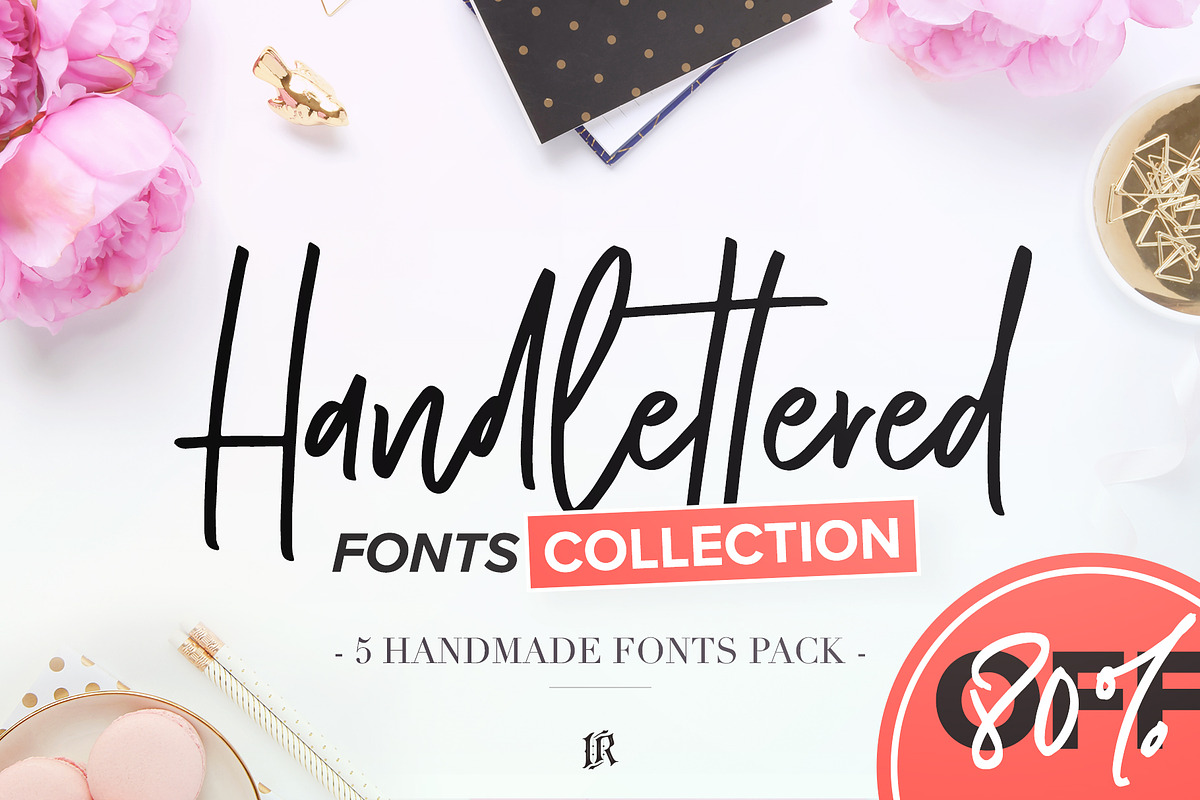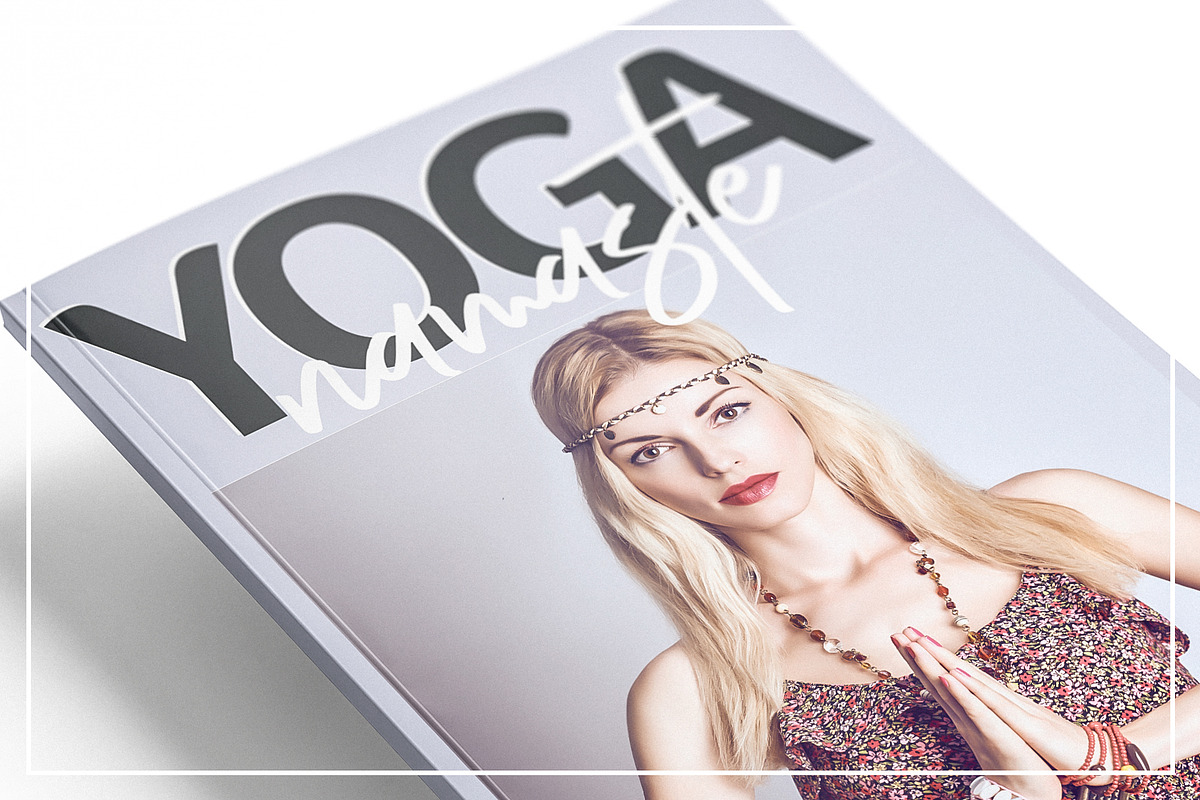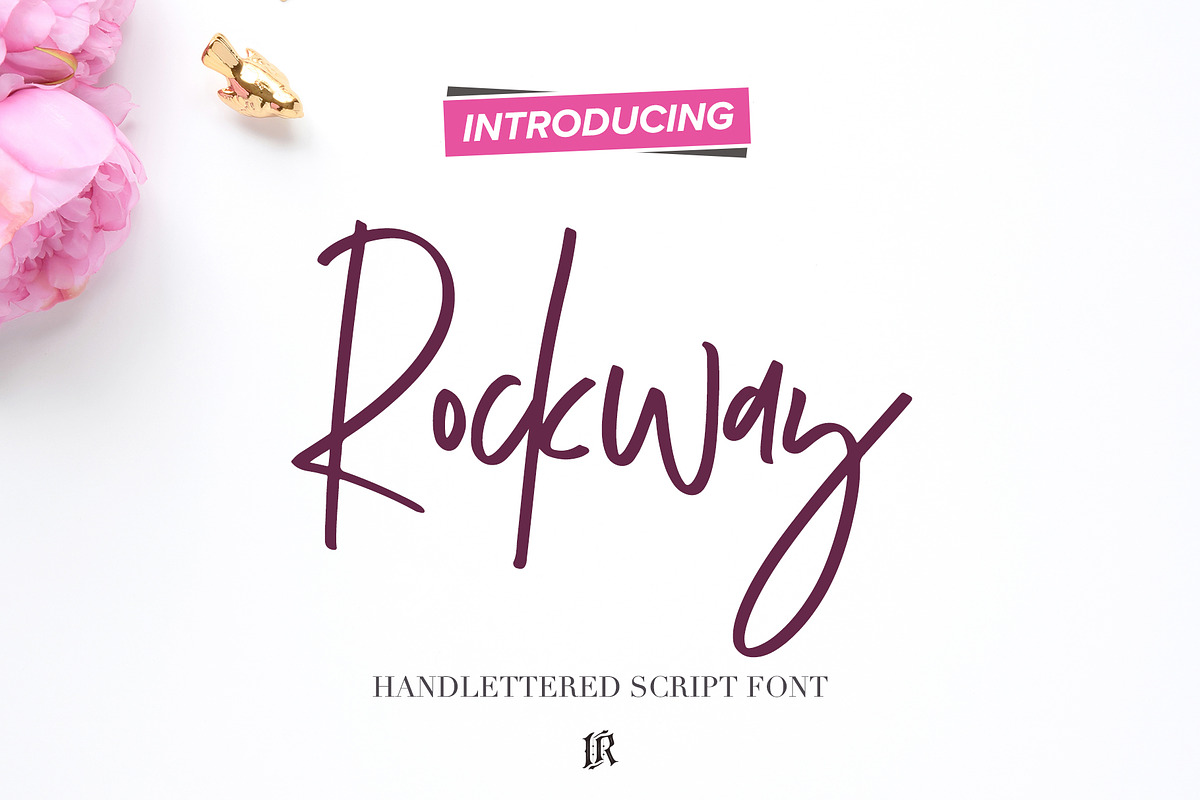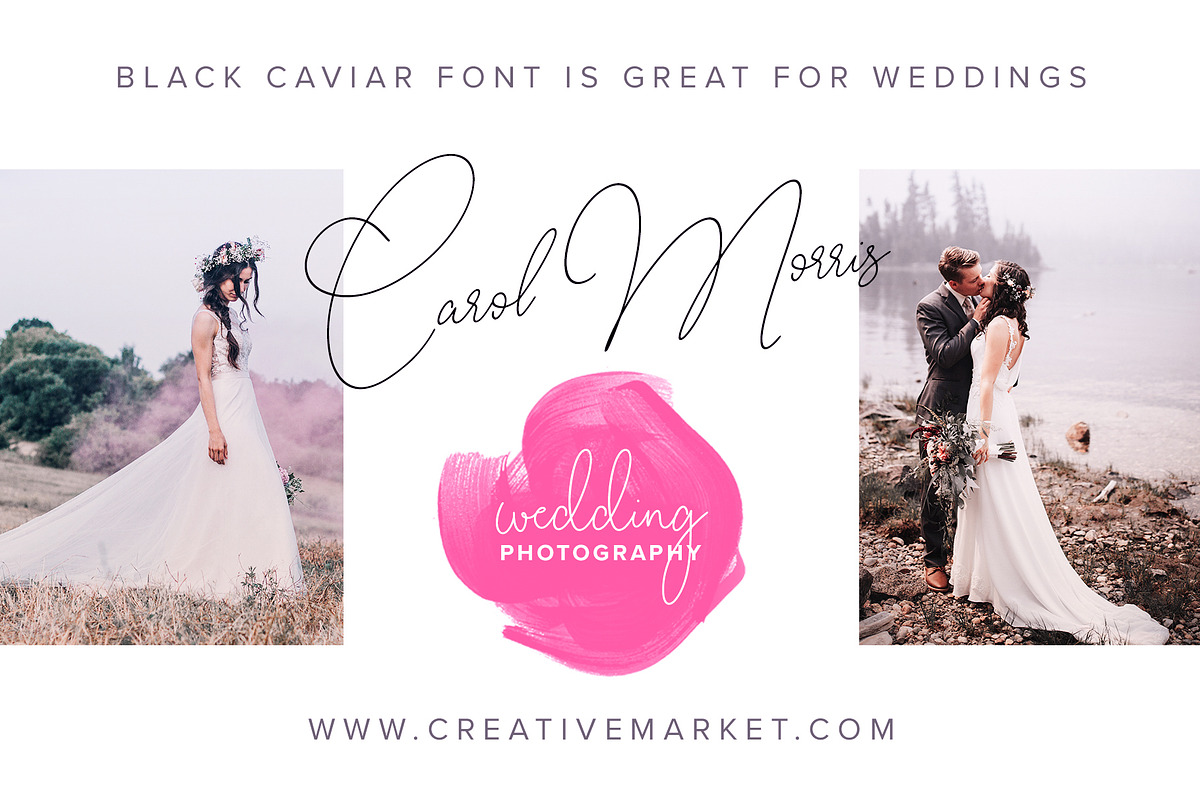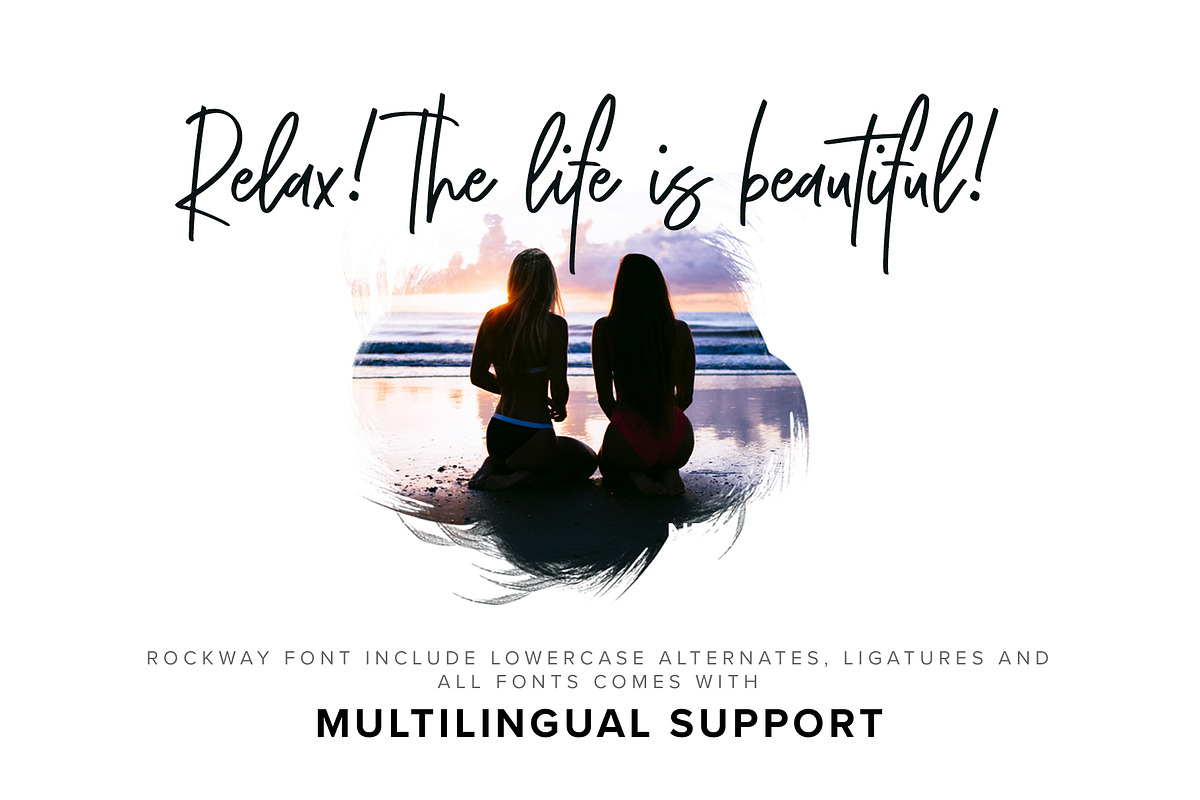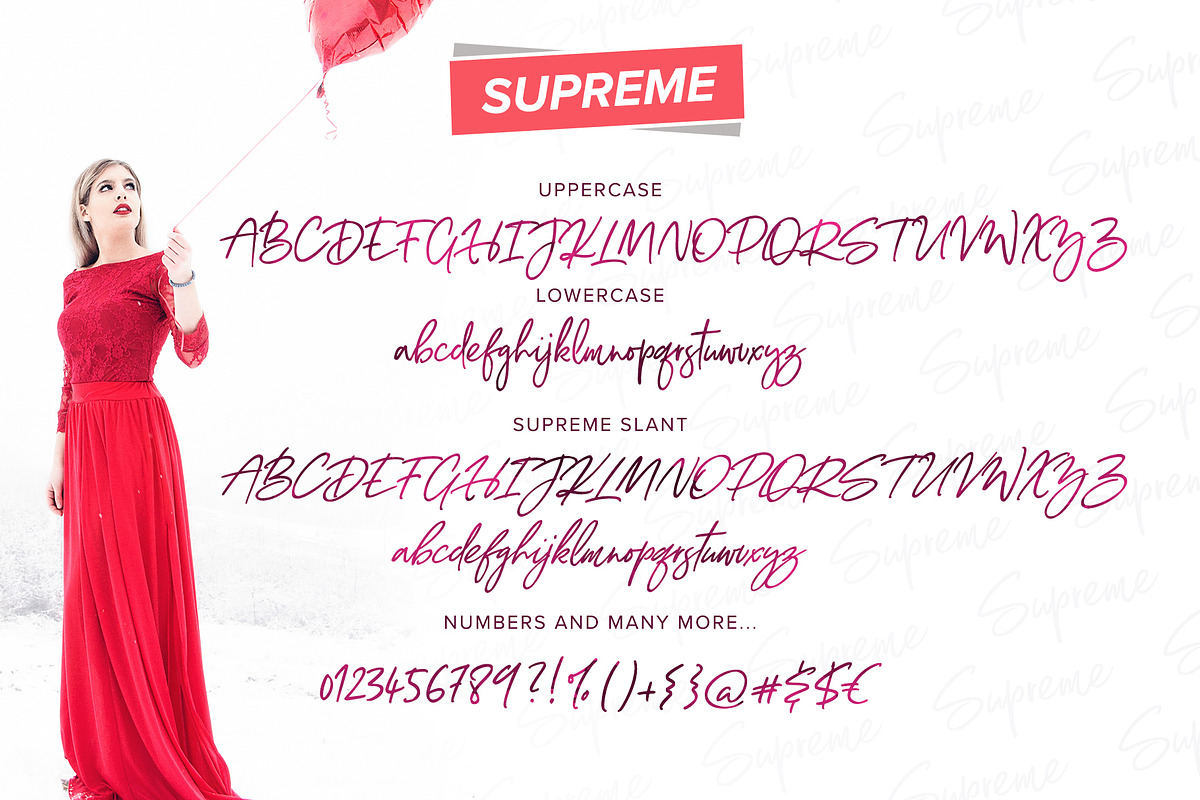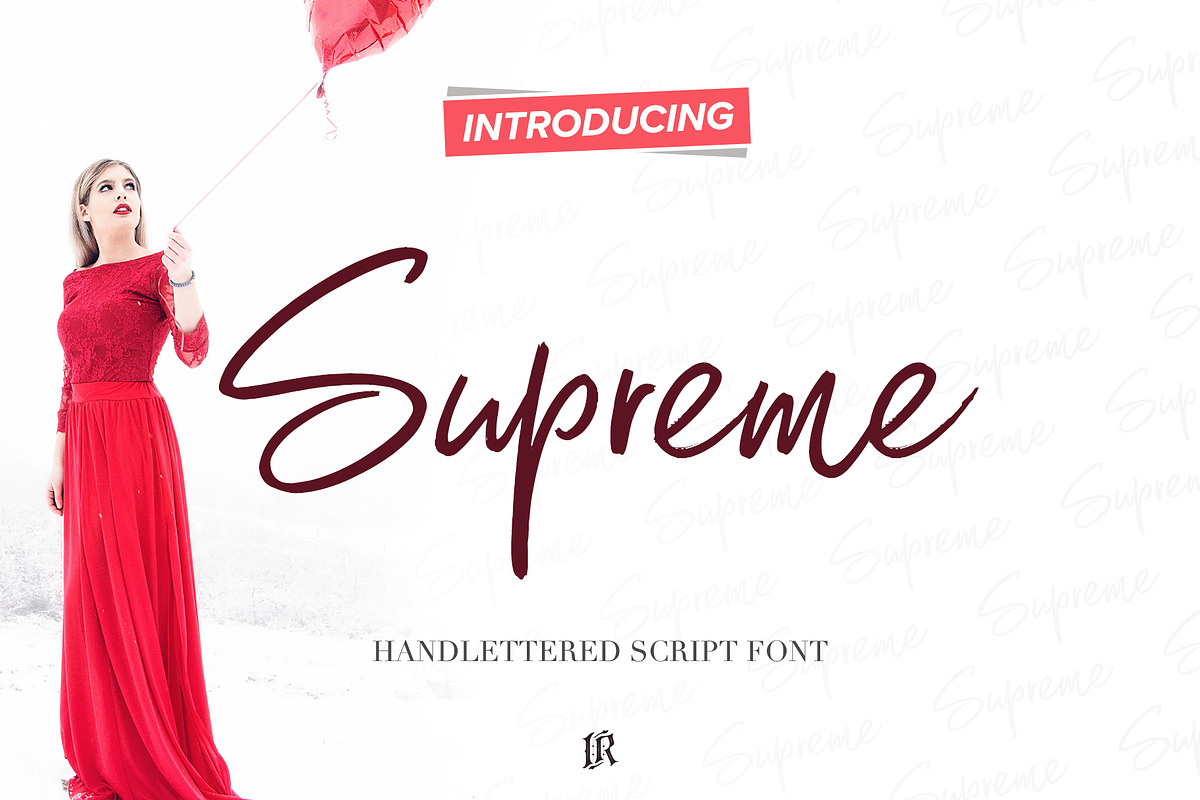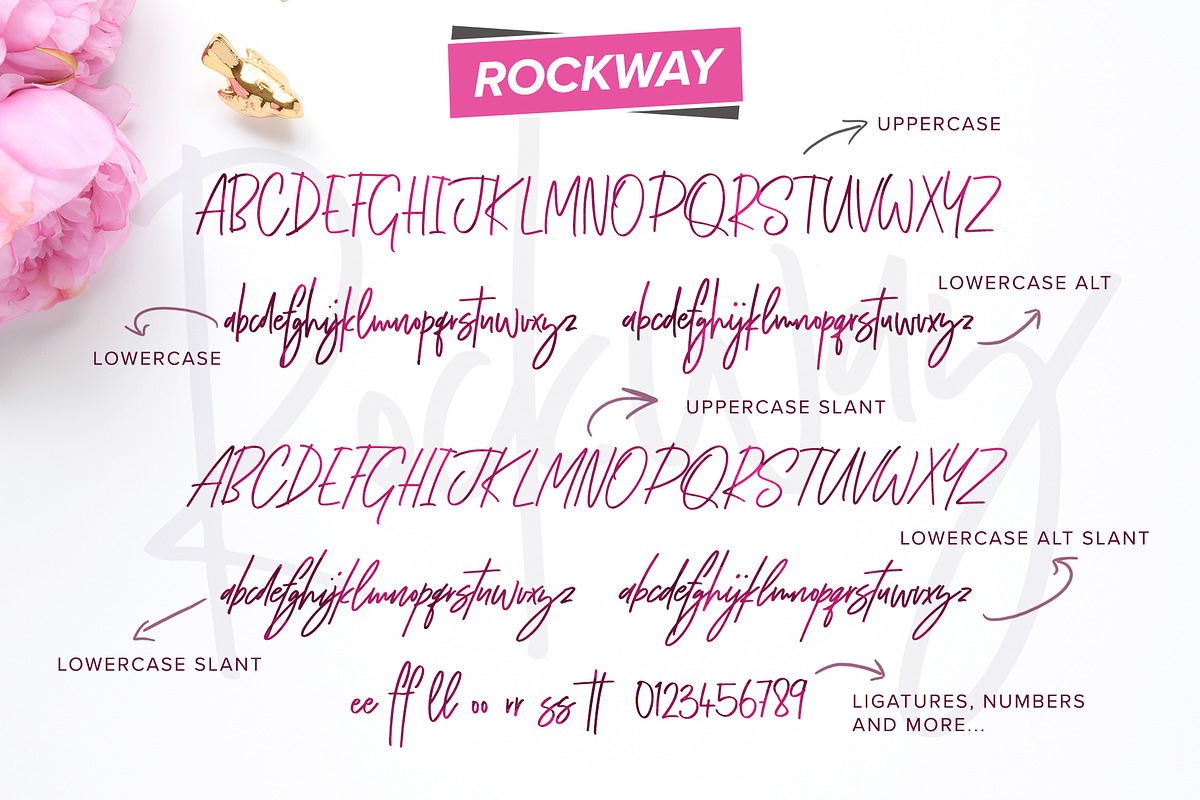
Handlettered Fonts Collection
Handlettered Fonts collection is a set of 5 handlettered fonts with multilingual support. These are ideal for t-shirts, magazines, phone covers, social media, restaurant menus, greeting cards, invitations, weddings, headers and many more.
Rockway - Regular, Slant + alternates
Supreme - Regular, Slant
Black Caviar - Regular, Slant
Marco Polo - Regular, Slant + alternates
Montreal - Regular, Slant + alternates
Why Handlettered Fonts Collection is worth a look
Handlettered Fonts Collection by Ivan Rosenberg fits naturally into Branding, posters, packaging, typography.